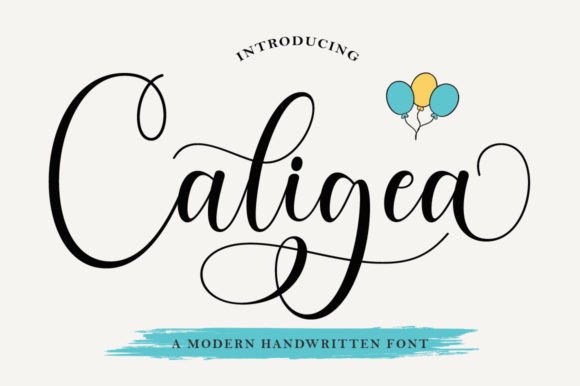
The Elusive Font: A Designer’s Quest for Perfection
I’ll never forget the frustration of working on a high-end branding project, only to hit a creative roadblock when it came to selecting the perfect font. My client wanted something elegant, modern, and unique – a font that would elevate their brand and leave a lasting impression. After hours of scouring the internet, I stumbled upon Caligea Font, a beautiful, modern calligraphic font that would change the game.
First Impressions: A Love Affair with Caligea
As soon as I opened Caligea, I knew I had found something special. Its graceful lines, beautiful rhythm, and stunning ligatures had me hooked. This font is a masterclass in elegance, perfect for creating gorgeous and classy compositions. Whether you’re working on branding projects, invitations, web graphics, or cards, Caligea is the perfect companion.
• ✨ Gorgeous calligraphic style: Caligea’s modern take on traditional calligraphy is simply stunning.
• 💫 Highly versatile: Perfect for a wide range of design projects, from branding to invitations.
Small Quirks and Limitations:
While Caligea is an exceptional font, there are a few minor quirks to be aware of:
• 🤔 Glyphs can be finicky: Take some time to get familiar with the font’s OpenType features and glyphs.
The Designer Behind Caligea: A Backstory
While the designer’s story may be shrouded in mystery, it’s clear that Caligea was crafted with love and attention to detail. This font is a testament to the power of typography and the impact it can have on design.
Q: Is Caligea suitable for body text?
While Caligea is a stunning font, it’s best suited for titles, headings, and short paragraphs. For body text, consider using a more traditional font.